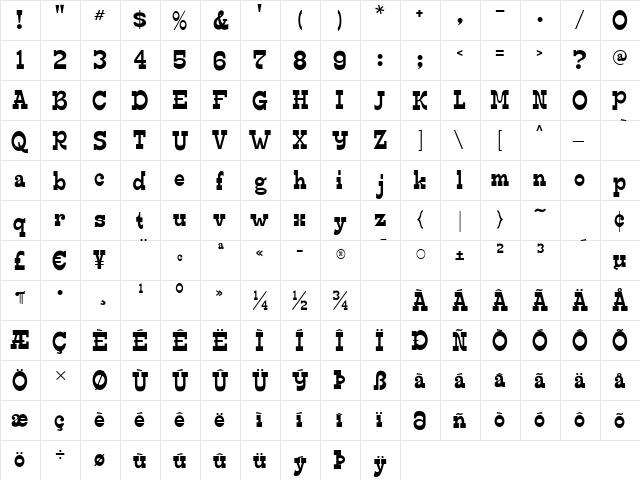
Edmunds Regular
Design Context for Edmunds Typeface
Edmunds takes a measured approach to typography — its balanced proportions and neutral character make it a reliable workhorse for both digital and print work.